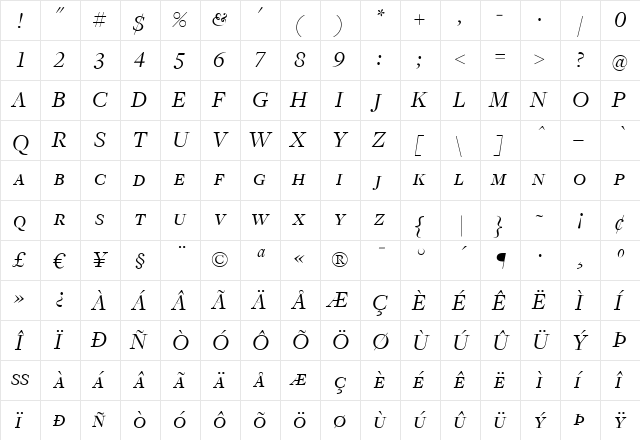
FreightDispBookItalicSC Regular Font Preview
FreightDispBookItalicSC Regular
FreightDispBookItalicSC Regular Font Details
| Foundry | Joshua Darden & Phil's Fonts, Inc |
| Designer | Joshua Darden |
Design Context for FreightDispBookItalicSC Typeface
FreightDispBookItalicSC takes a measured approach to typography — its balanced proportions and neutral character make it a reliable workhorse for both digital and print work. Its italic angle brings a sense of urgency and motion to the letterforms.